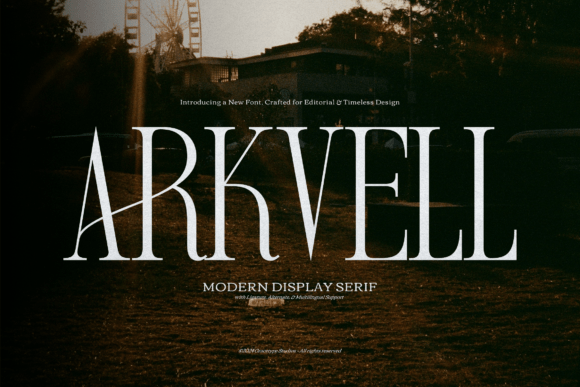
Introducing Arkvell Font: A Refined Modern Display Serif for Luxury Branding
In the world of typography, a well-designed font can elevate a brand’s visual identity and make a lasting impression on its audience. For designers seeking a sophisticated and modern display serif, look no further than Arkvell Font. This elegant typeface is specifically crafted for high-impact editorial layouts and timeless branding, making it an ideal choice for magazines, fashion branding, logos, book covers, and more.
What is Arkvell Font?
Arkvell is a refined modern display serif that exudes luxury and professionalism. Its tall letterforms, sharp contrast, and elegant curves create a sense of sophistication, perfect for designers seeking clean yet character-rich typography. This font seamlessly blends classic serif elegance with a minimalist modern touch, making it an excellent choice for a wide range of applications.
Key Features of Arkvell Font
- Tall Letterforms: Arkvell’s tall letterforms create a sense of grandeur and elegance, making it perfect for headlines, titles, and branding.
- Sharp Contrast: The font’s sharp contrast between thick and thin strokes adds depth and visual interest, creating a dynamic and engaging reading experience.
- Elegant Curves: Arkvell’s elegant curves and refined lines create a sense of sophistication and luxury, making it ideal for high-end branding and editorial layouts.
- Finely Crafted Ligatures: The font’s finely crafted ligatures add an extra touch of elegance, perfect for creating beautiful and intricate typography.
- Stylish Alternates: Arkvell’s stylish alternates provide designers with a range of creative options, allowing them to add a personal touch to their typography.
- Multilingual Support: This font includes multilingual support, making it suitable for a wide range of global applications.
What Makes Arkvell Font Unique?
Arkvell Font stands out from other display serifs due to its unique blend of classic elegance and modern sophistication. The font’s refined lines, elegant curves, and sharp contrast create a distinctive look that is both timeless and contemporary. Additionally, Arkvell’s finely crafted ligatures and stylish alternates provide designers with a range of creative options, making it an excellent choice for designers seeking a high-end typography solution.
Benefits of Using Arkvell Font
- Luxury Branding: Arkvell’s sophisticated design makes it perfect for luxury branding, adding a touch of elegance and refinement to any brand.
- High-Impact Editorial Layouts: The font’s tall letterforms, sharp contrast, and elegant curves create a sense of drama and sophistication, making it ideal for high-impact editorial layouts.
- Timeless Design: Arkvell’s classic serif elegance and modern touch create a timeless design that will remain relevant for years to come.
- Multilingual Support: The font’s multilingual support makes it suitable for a wide range of global applications, allowing designers to create typography that resonates with diverse audiences.
Technical Details of Arkvell Font
In conclusion, Arkvell Font is a refined modern display serif that offers a unique blend of classic elegance and modern sophistication. Its tall letterforms, sharp contrast, and elegant curves create a sense of luxury and professionalism, making it perfect for high-end branding, editorial layouts, and more. With its finely crafted ligatures, stylish alternates, and multilingual support, Arkvell is an excellent choice for designers seeking a high-end typography solution.
- Font Type: Display Serif
- Font Style: Modern, Elegant, Sophisticated
- Ligatures: Finely crafted ligatures
- Alternates: Stylish alternates